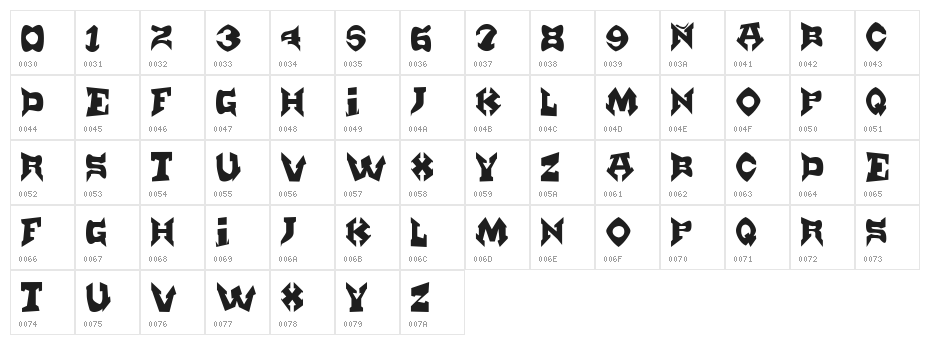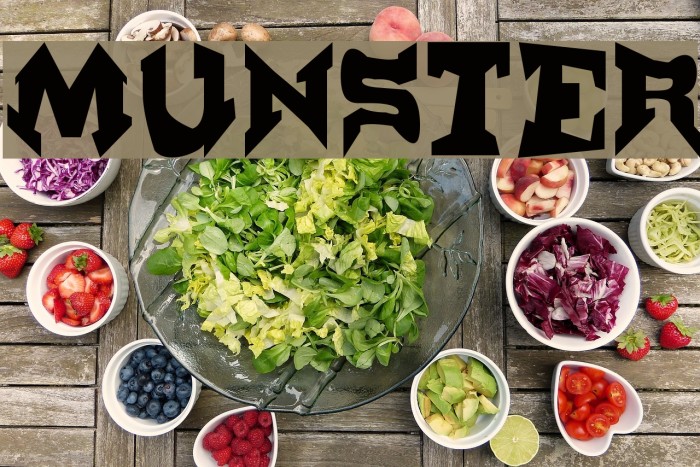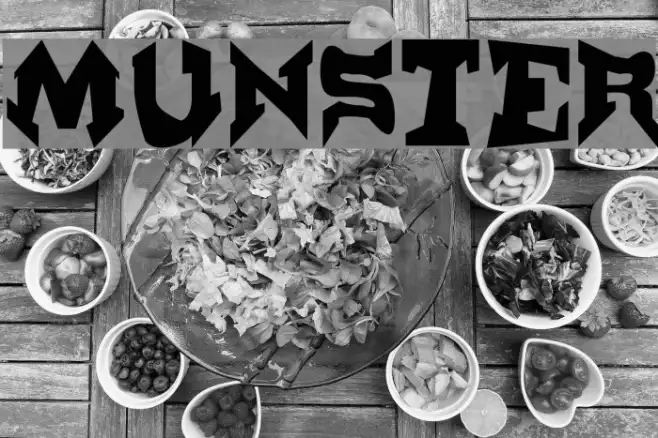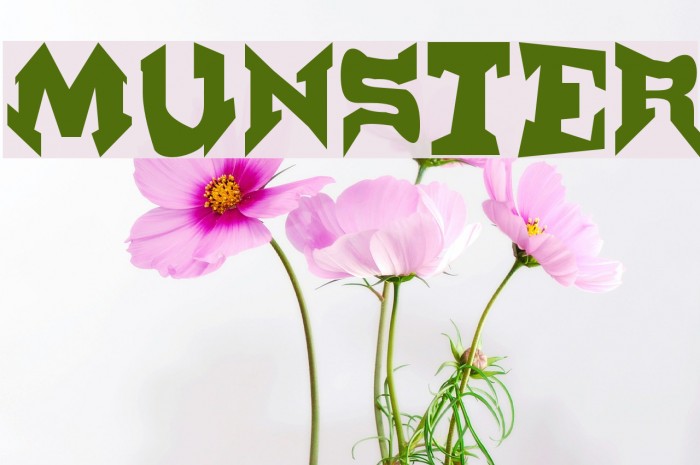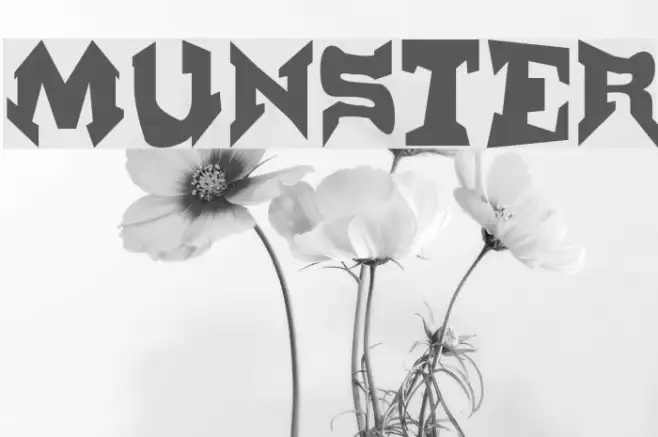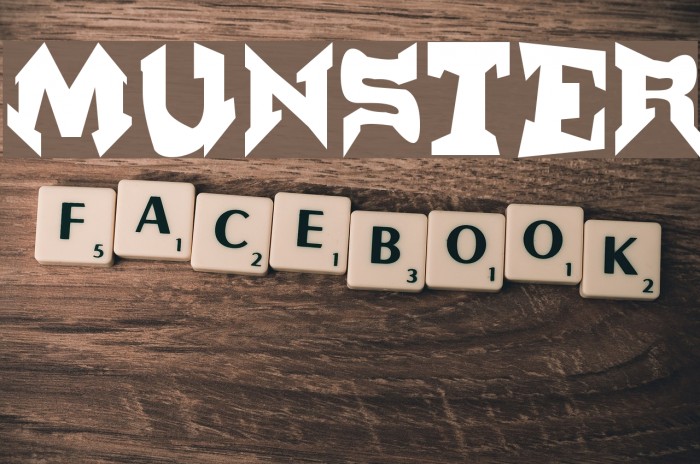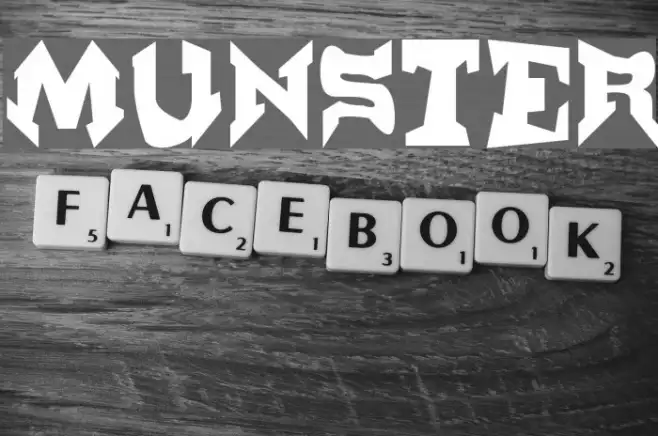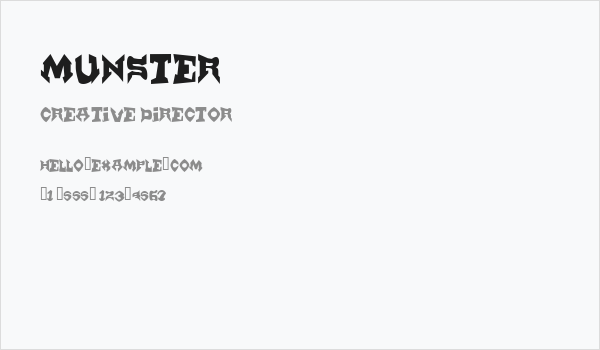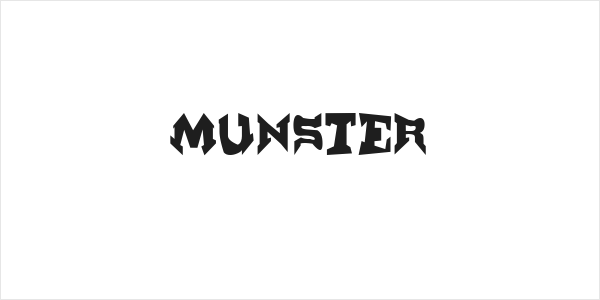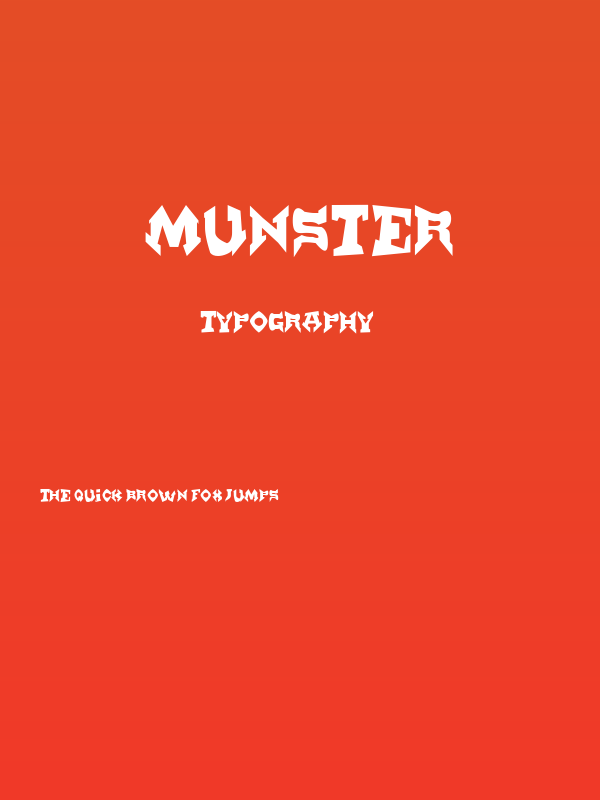
Munster Font
Munster Description
This font features a bold, angular design with sharp edges and a gothic-inspired aesthetic. The uppercase and lowercase letters share a consistent style, characterized by their dramatic, pointed serifs and thick strokes. The numbers and special characters maintain this cohesive look, adding a sense of uniformity across the entire typeface. The overall appearance is striking and attention-grabbing, making it suitable for projects that require a strong visual impact. Its unique style is reminiscent of medieval or horror-themed designs, lending itself well to creative and thematic uses.
Overall StyleGothic, Decorative
Use CaseHeadlines, Posters, Thematic Designs
Proposed ProjectsIdeal for horror-themed posters, Halloween invitations, video game titles, and any project needing a dramatic, gothic touch.